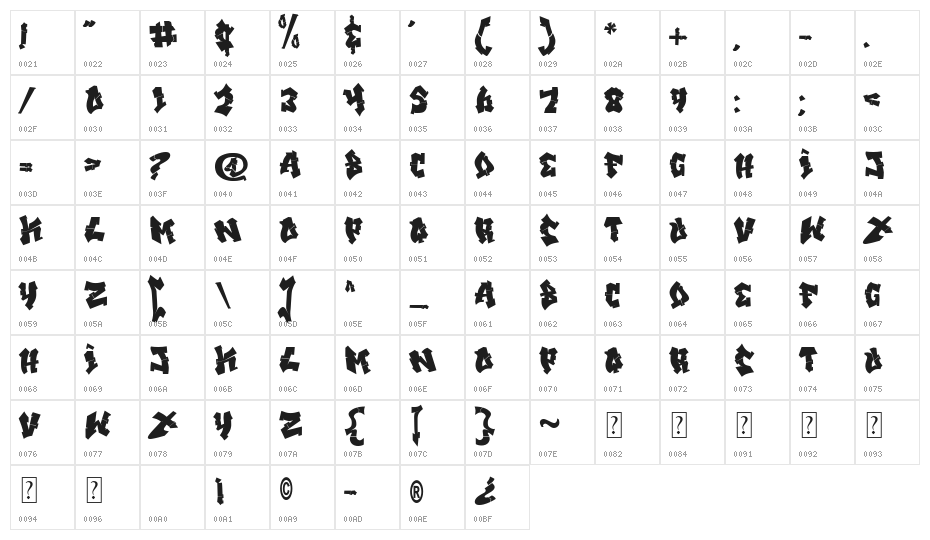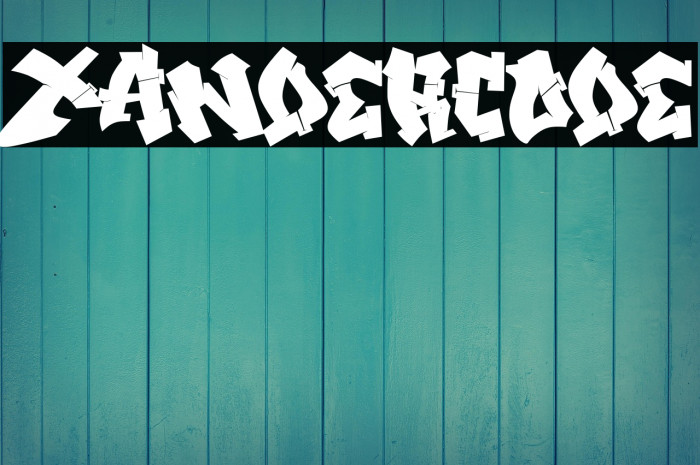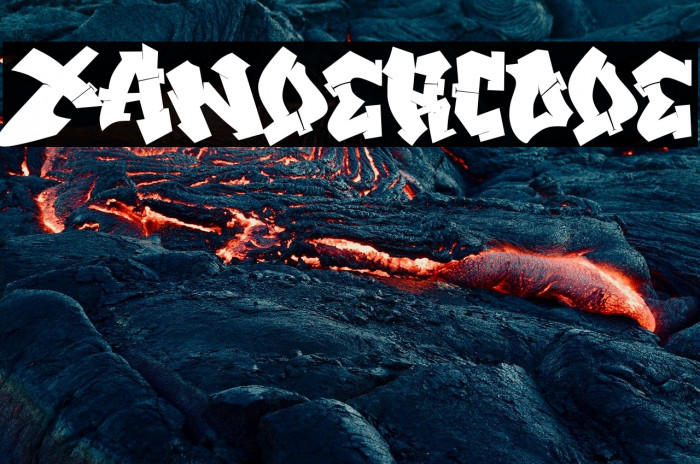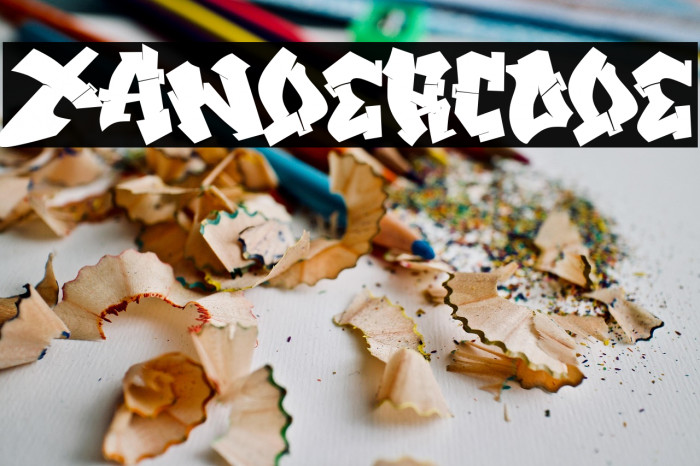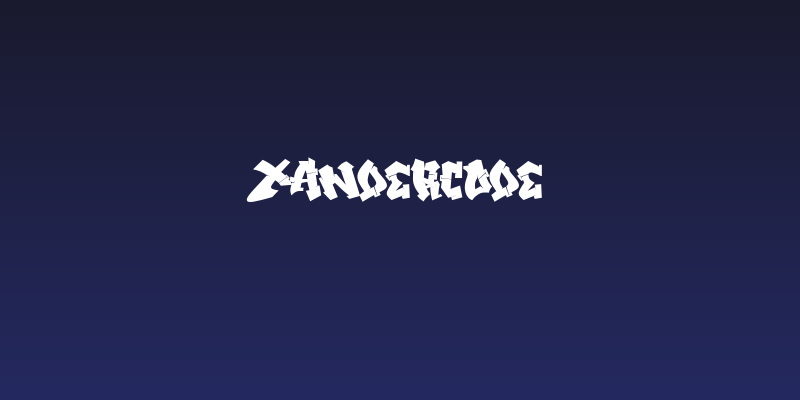
Xandercode Font
Xandercode Description
This font features a bold and dynamic style with a graffiti-inspired aesthetic. The characters are heavily stylized with sharp angles and a fragmented appearance, giving them a sense of movement and energy. The uppercase and lowercase letters maintain a consistent design, with each character appearing as if it is constructed from overlapping geometric shapes. The numbers and special characters follow the same design principles, ensuring a cohesive look across all elements. This font is highly decorative and makes a strong visual impact, ideal for projects that require a bold statement.
| Categories | Graffiti |
| Overall Style | Modern, Urban |
| Use Case | Logos, Headlines, Posters |
| Proposed Projects | Ideal for street art designs, urban-themed posters, music album covers, and edgy branding projects. |